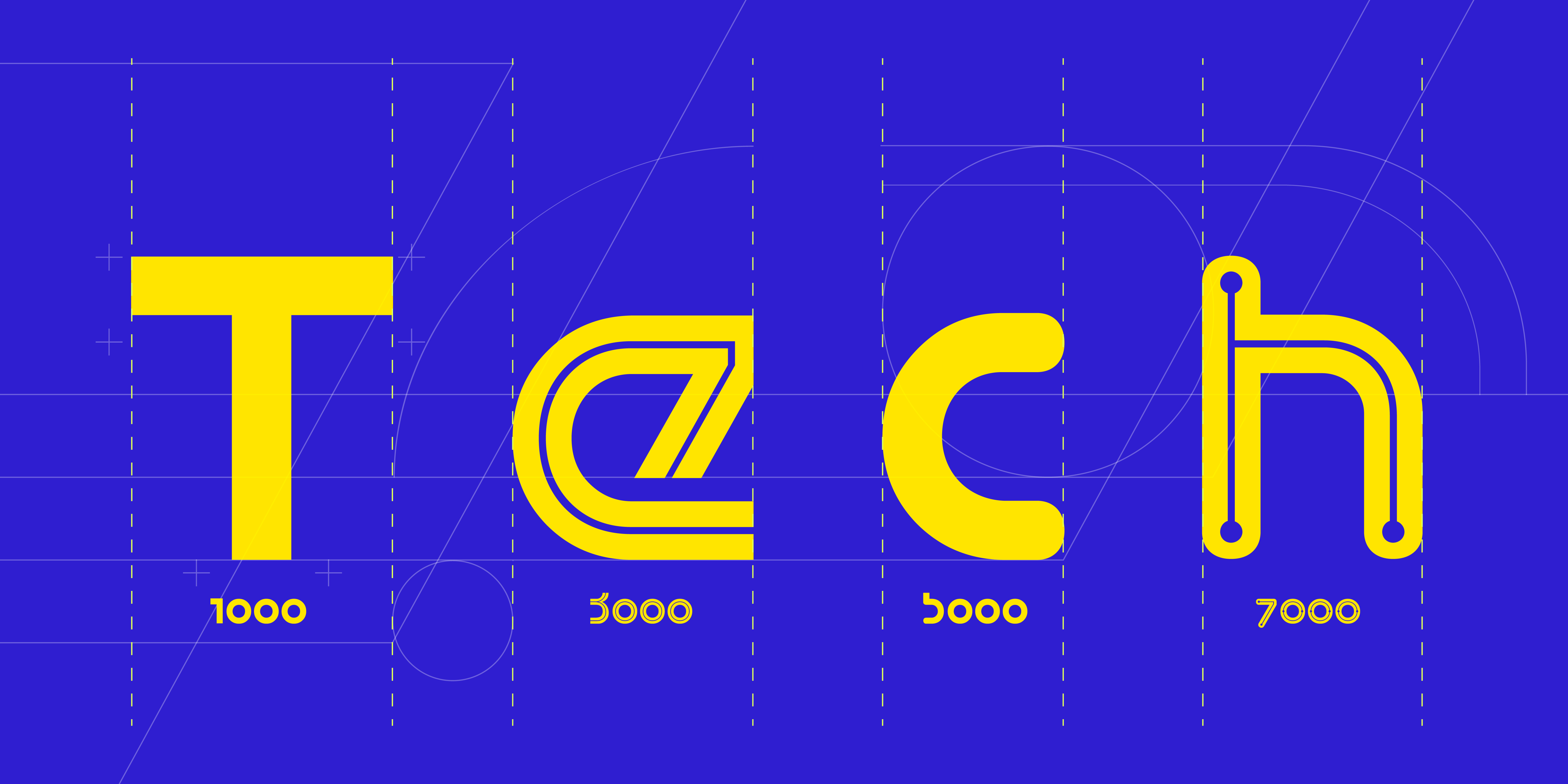
Tech Font is perfect for technology companies, software interfaces, digital platforms, gaming applications, cybersecurity firms, AI startups, mobile apps, futuristic branding, and any project requiring cutting-edge typography with modern technological sophistication and digital innovation aesthetics.
What makes Tech Font exciting is its futuristic precision that captures the essence of digital innovation and technological advancement with clean, geometric letterforms inspired by circuit boards and digital interfaces. This revolutionary typeface embodies the sleek efficiency of modern technology with sharp angles and precise spacing that reflect the accuracy and reliability of digital systems. The font's high-tech character and contemporary appeal make it perfect for brands operating at the forefront of technological innovation and digital transformation.
The Tech Font family includes multiple weights from light to black, featuring complete uppercase and lowercase alphabets, numerals, punctuation marks, and tech-inspired symbols. The font maintains consistent digital precision throughout all weights while ensuring optimal performance across screens, devices, and digital platforms with exceptional clarity and readability.
Whether you're designing for software companies, creating digital product interfaces, or developing tech startup branding with futuristic aesthetics, Tech Font Free Download delivers unmatched technological authority and digital sophistication. This innovative typeface transforms ordinary text into powerful digital statements that communicate innovation, efficiency, and cutting-edge expertise. The font's modern precision makes it ideal for user interfaces, tech presentations, and digital marketing materials. Download this exceptional font today and bring the dynamic energy of technological innovation to your design projects with authentic digital sophistication and futuristic appeal.